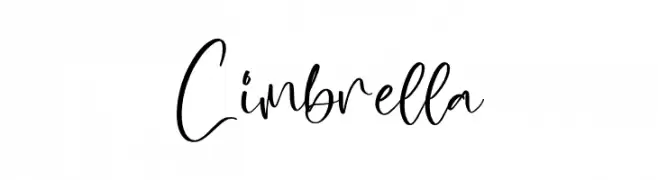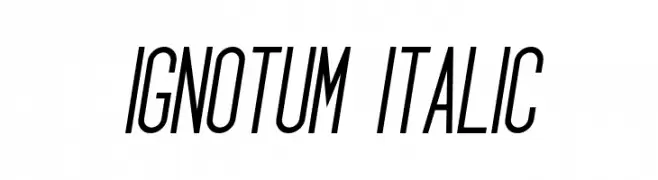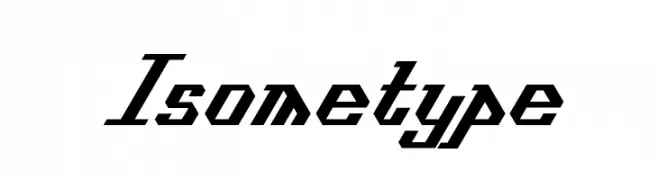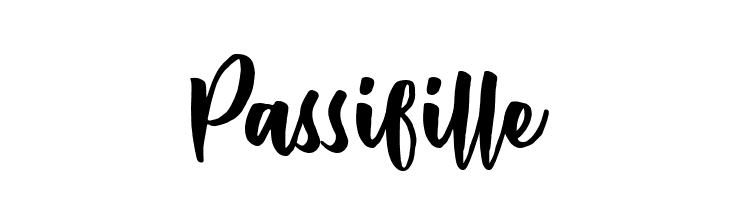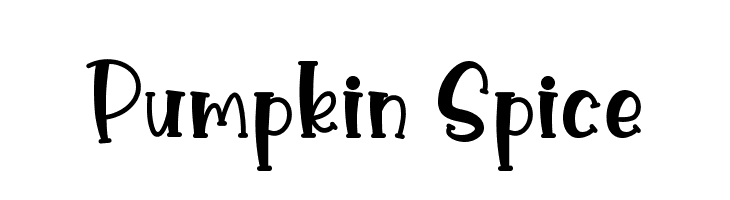
A bold, flowing script font with elegant, dynamic curves and high contrast.
A whimsical, handwritten script with tall, narrow, and flowing letterforms.
Bold, slanted font with wide, blocky characters for dynamic impact.
A modern, italic font with a sleek, condensed design and medium contrast.
A bold, dynamic script font with elegant curves and high contrast.
A modern, italic font with medium contrast and geometric structure.
A modern, extra condensed font with thin strokes and a geometric style.
A playful and elegant script font with a hand-drawn appearance.
A bold, expressive script font with a lively, handwritten style.
A bold, dynamic script font with elegant curves and a lively appearance.